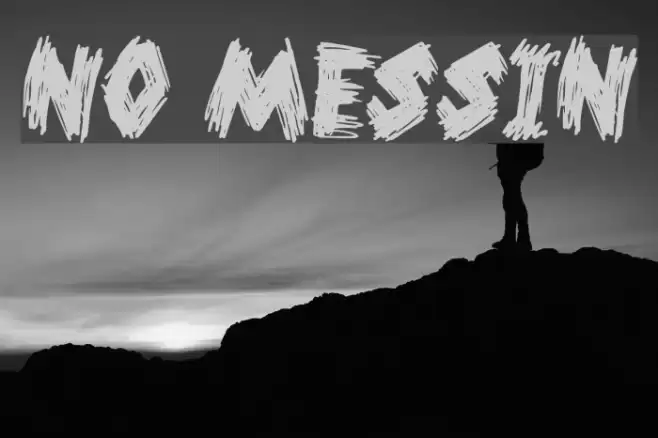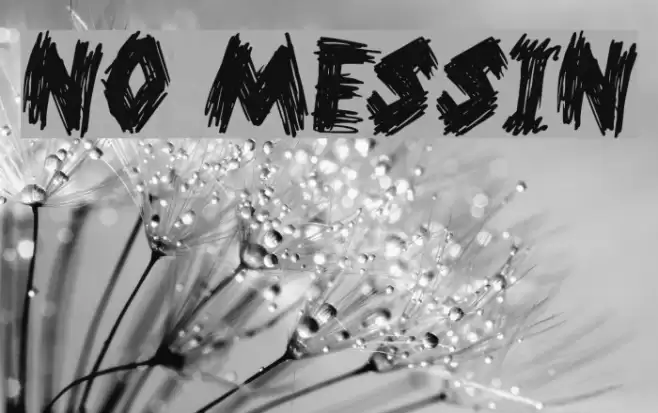
No Messin Font
No Messin Description
This font features a bold, hand-drawn style with a rough, textured appearance. Each character is uniquely crafted with uneven strokes, giving it an energetic and dynamic feel. The letters are uppercase and lowercase, with numbers and a selection of special characters. The overall design is reminiscent of graffiti or street art, making it ideal for projects that require a bold and unconventional look. The font's irregularity and strong visual impact make it stand out, perfect for grabbing attention.
A bold, hand-drawn font with a rough, textured appearance, ideal for dynamic and unconventional designs from Uncategorized fonts.
- Proposed Projects: Perfect for posters, album covers, streetwear branding, and any project needing a bold, artistic touch.
- Overall Style: Modern, Artistic